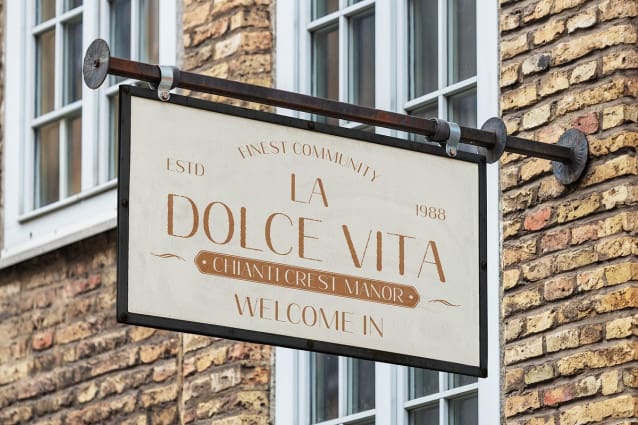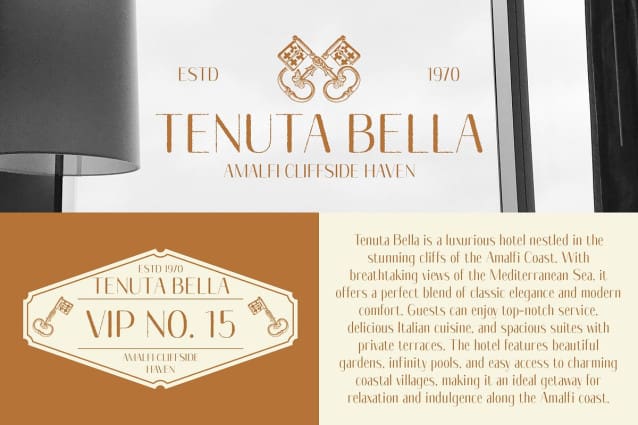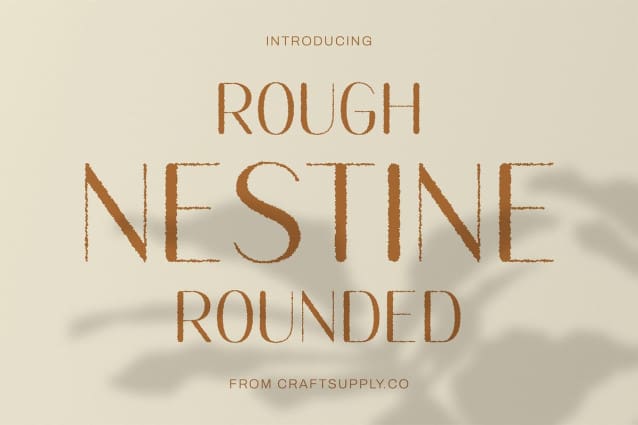
Nestine Rounded Rough Font
Nestine Rounded Rough Font – Elegant Sans-Serif with a Rugged Twist. A Stylish Blend of Elegance and Edge This a modern sans-serif font that perfectly balances sleek, rounded shapes with a rugged, rough texture. Its clean lines and smooth curves offer a sophisticated, contemporary aesthetic, while the rough edges introduce a unique, raw quality, making this font ideal for designs that need a touch of elegance with a bit of grit.
Perfect for Branding and Editorial Designs With its versatile appeal, this rounded rough font shines in branding, editorial layouts, and contemporary projects. The refined roundness makes it approachable and elegant, while the rough texture ensures it stands out with an urban, artistic feel. This combination is perfect for designs that require a balance between professionalism and creative flair.
Sophisticated with a Rugged Touch This rounded rough font adds a distinctive edge to your design without losing sophistication. Its balance of smooth, clean curves and textured, unfinished elements makes it perfect for both luxury and edgy branding projects. Whether you’re designing a high-end magazine layout, logo, or contemporary website, this font offers a unique blend of polished style and bold character.